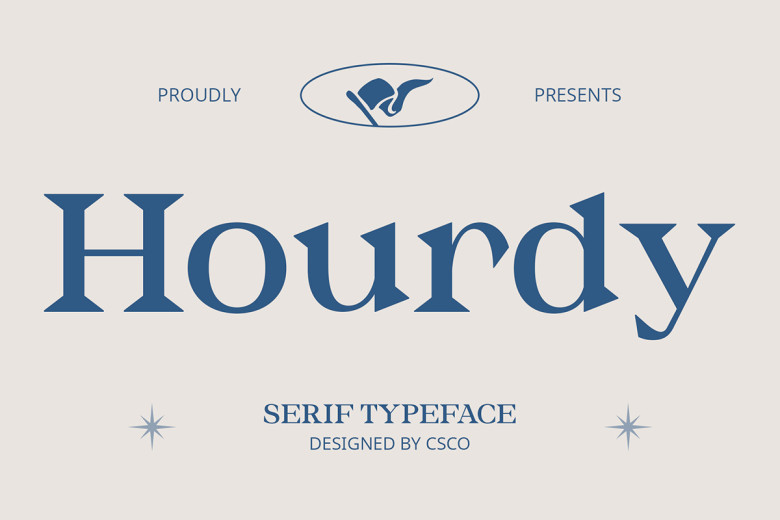
Hourdy Font
It is a modern serif typeface perfect for formal projects: Hourdy Font – Serif Typeface. The modern font has a serif design that brings a bit of elegance into the typeface, and the font is highly suitable for different uses, including business forms, websites, and more.
Due to its flexibility of use, one can use Hourdy Typeface in a variety of areas such as in headings, text body, and logos. This font type incorporates modernity in projects as well as a positive blending of serif to provide a touch of the regions in projects.
The aspect of legibility is highly considered in Hourdy Typeface to allow one to convey his or her message well. This font is specially suitable for small screen size in digital media as well as for small printings this font can be used.
Hourdy Typeface is perfect for any job that needs a business-like and sleek appearance with no matter if it is a business card, website, or a presentation. Rich in design, its designs allow your documents to retain that fresh look, which commanders love, no matter the current trends.
Hourdy Serif Font